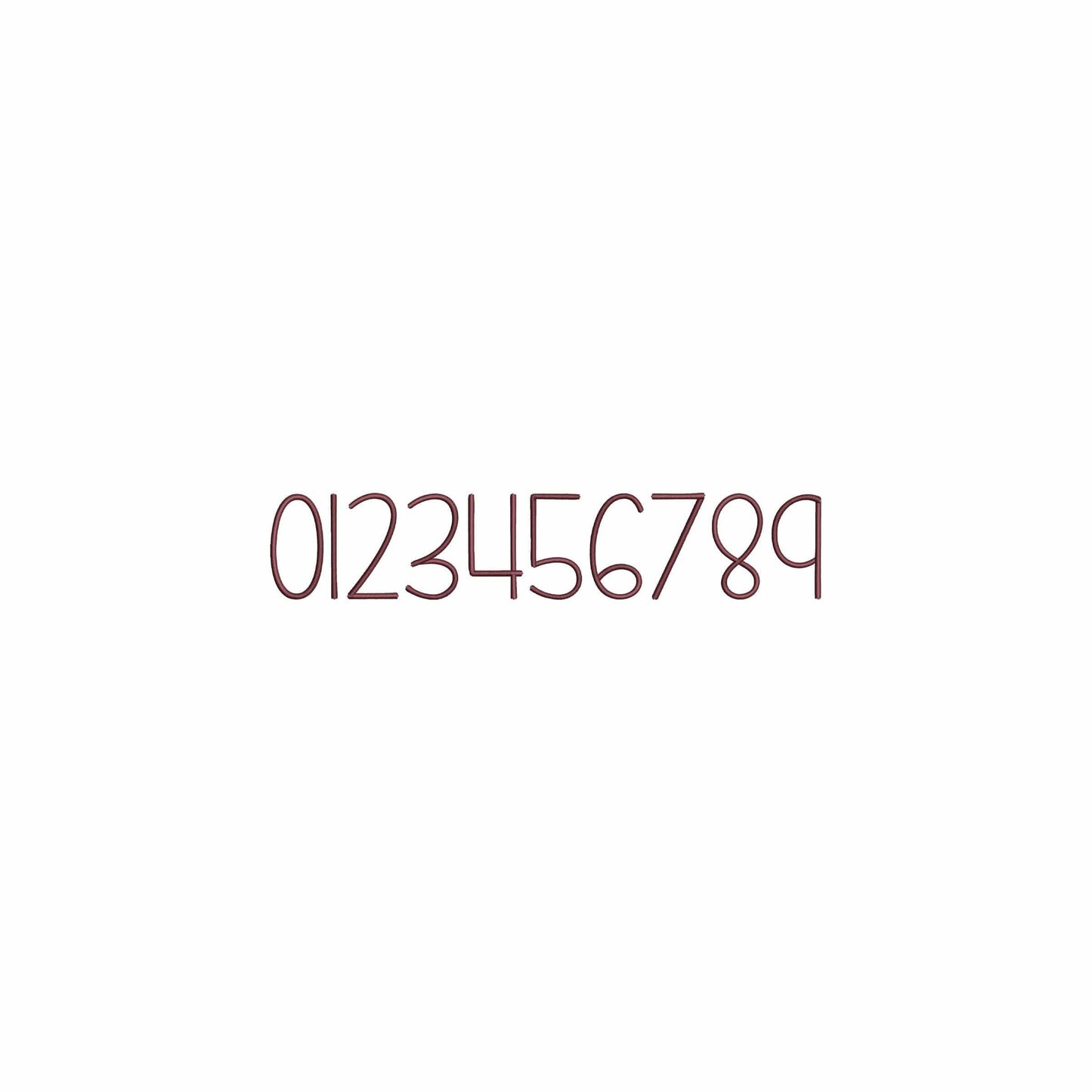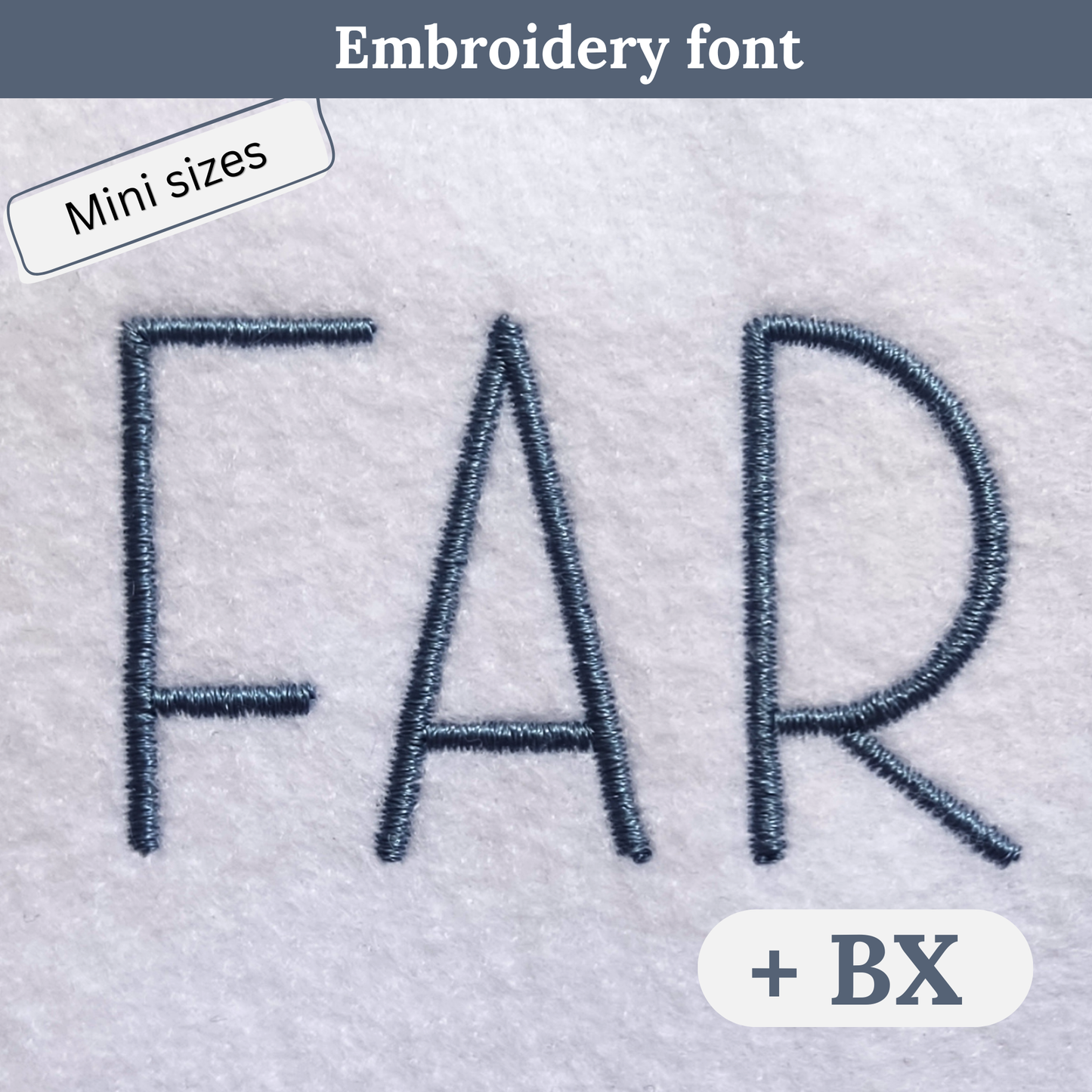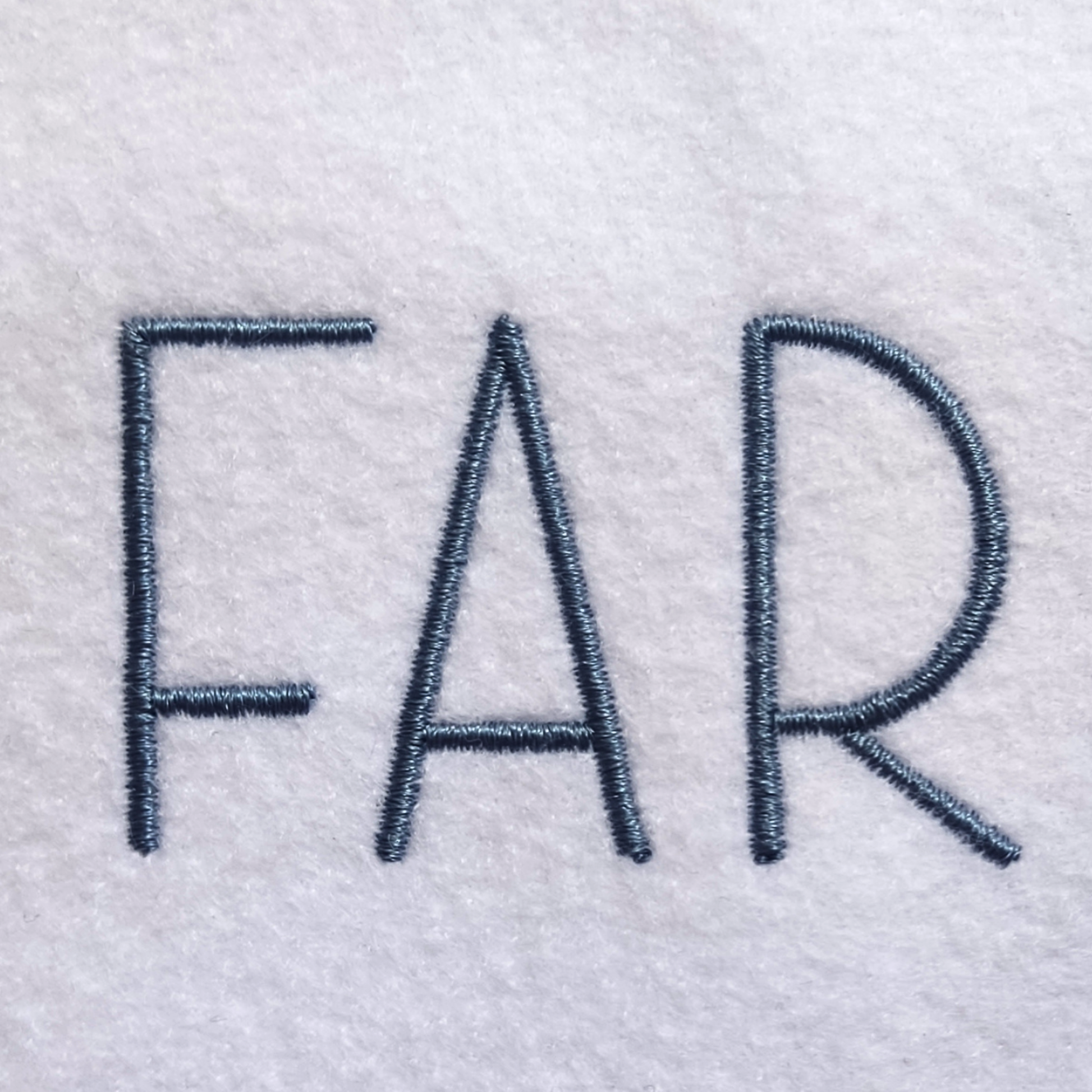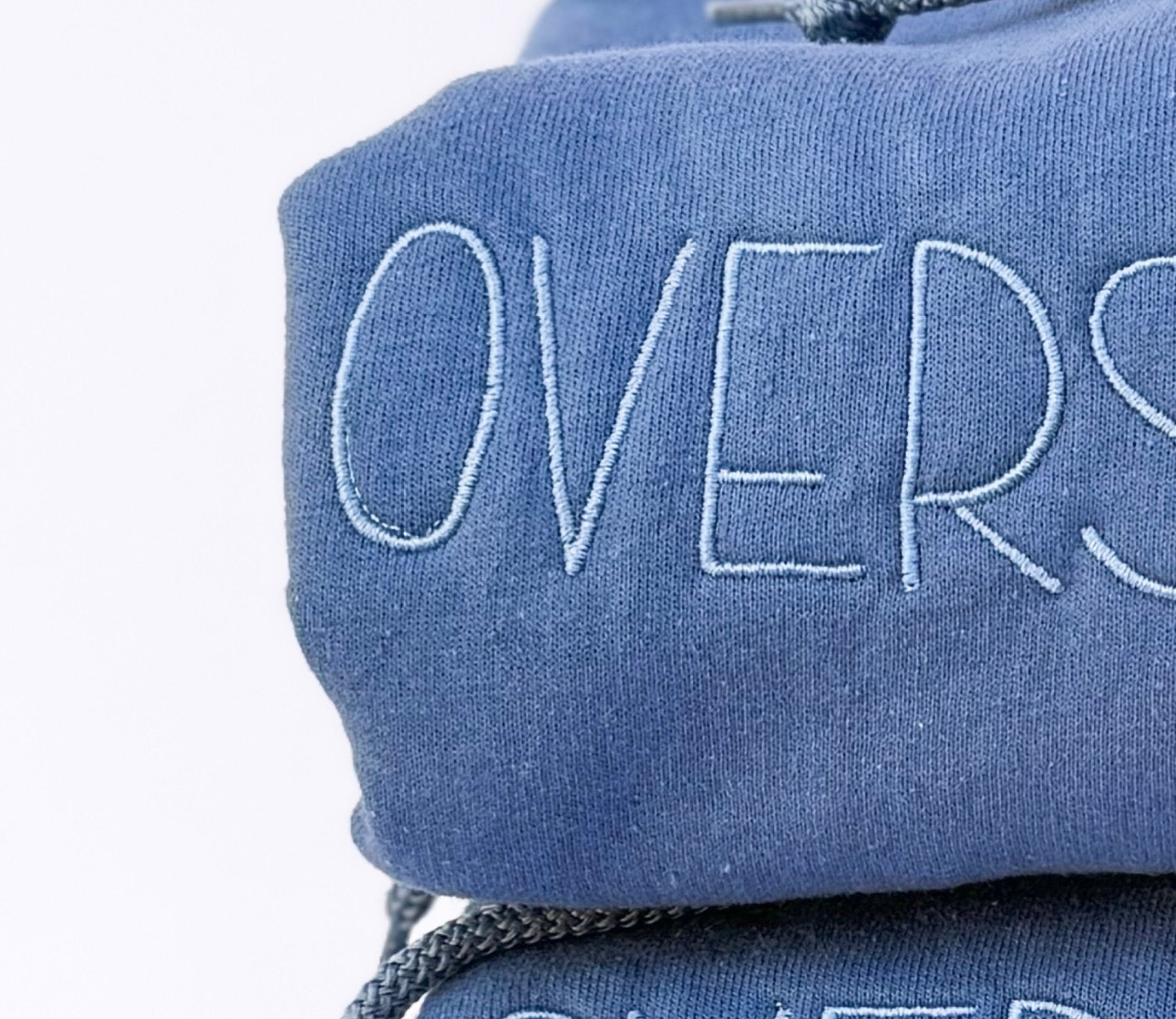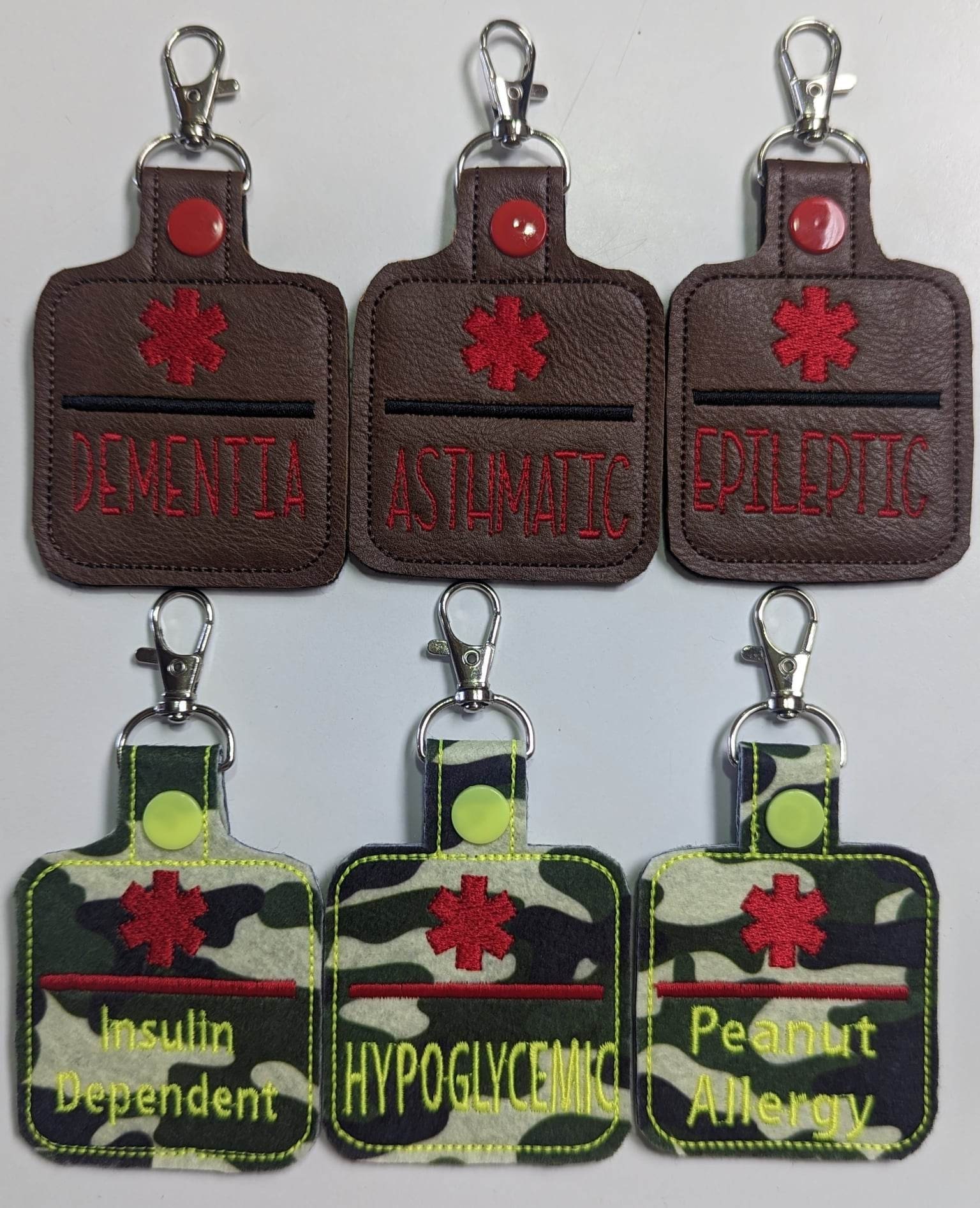
Farmhouse - Mini embroidery font
This mini machine embroidery font works well for monograms, small labels, baby items, towels, napkins, and rustic personalized projects.